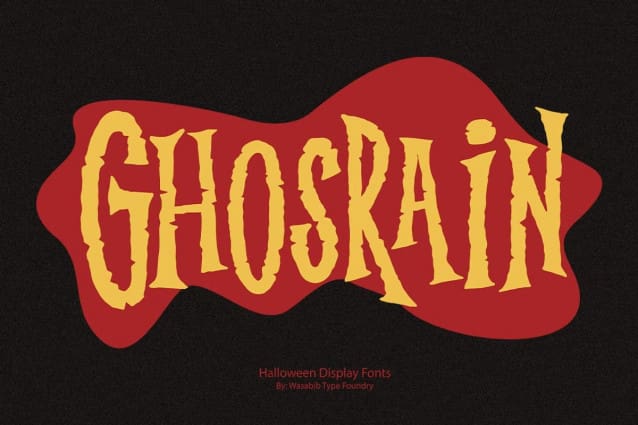
WTF Ghosrain Font
WTF Ghosrain Font is a creepy and spooky looking display font. It is perfectly suitable for any Halloween-related project or crafty idea! This font is perfect for making Halloween poster or flyer.